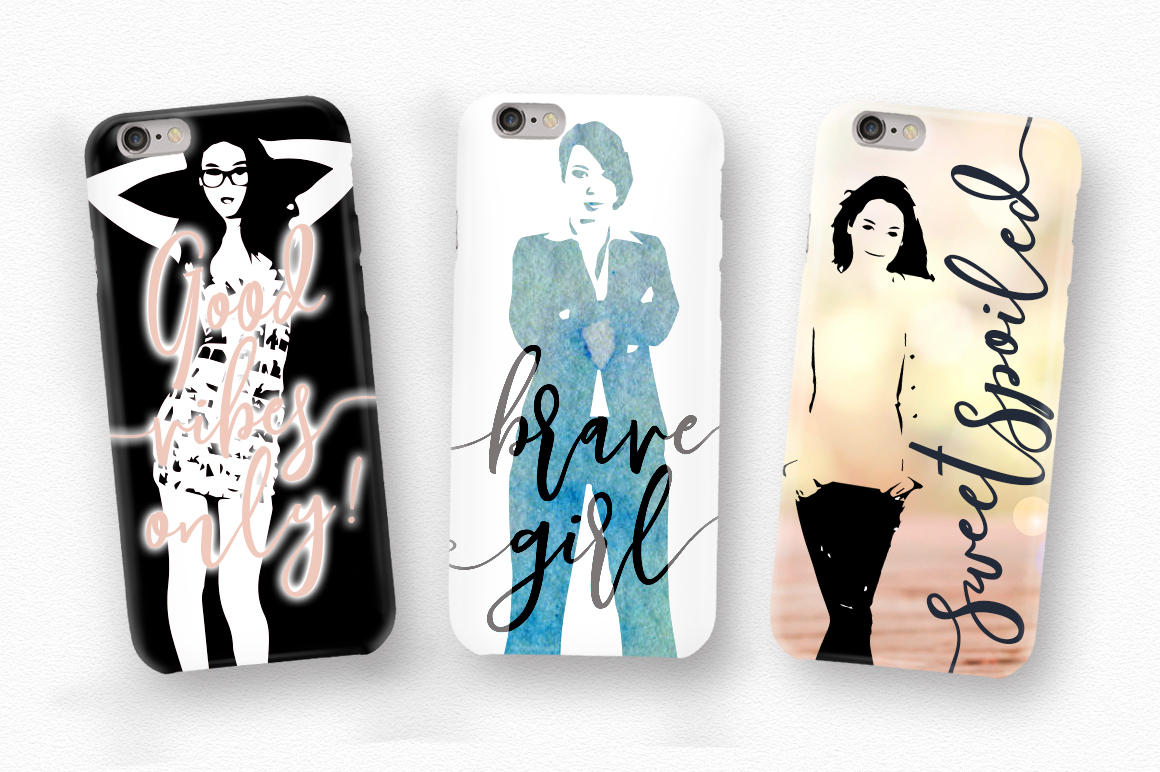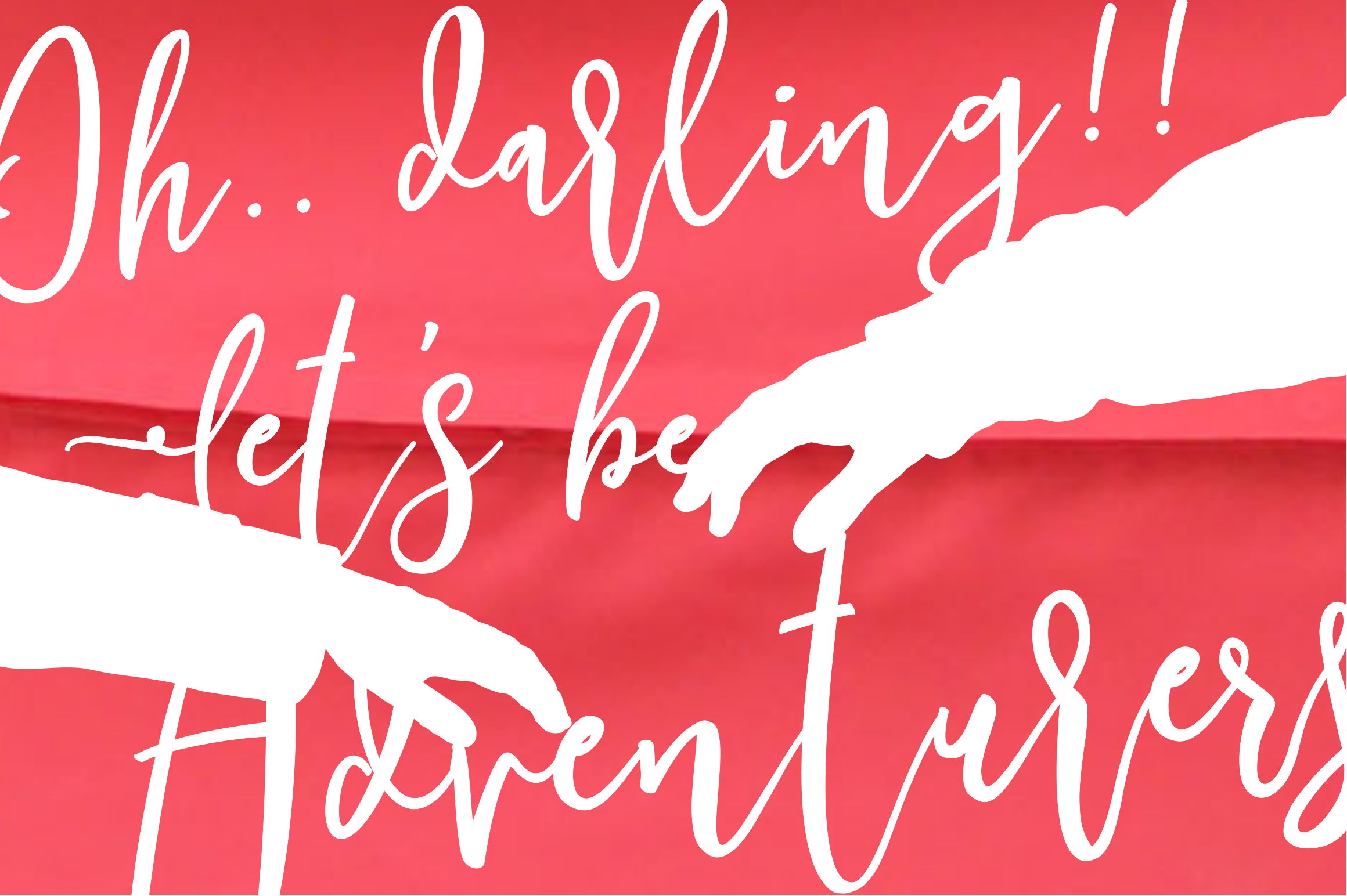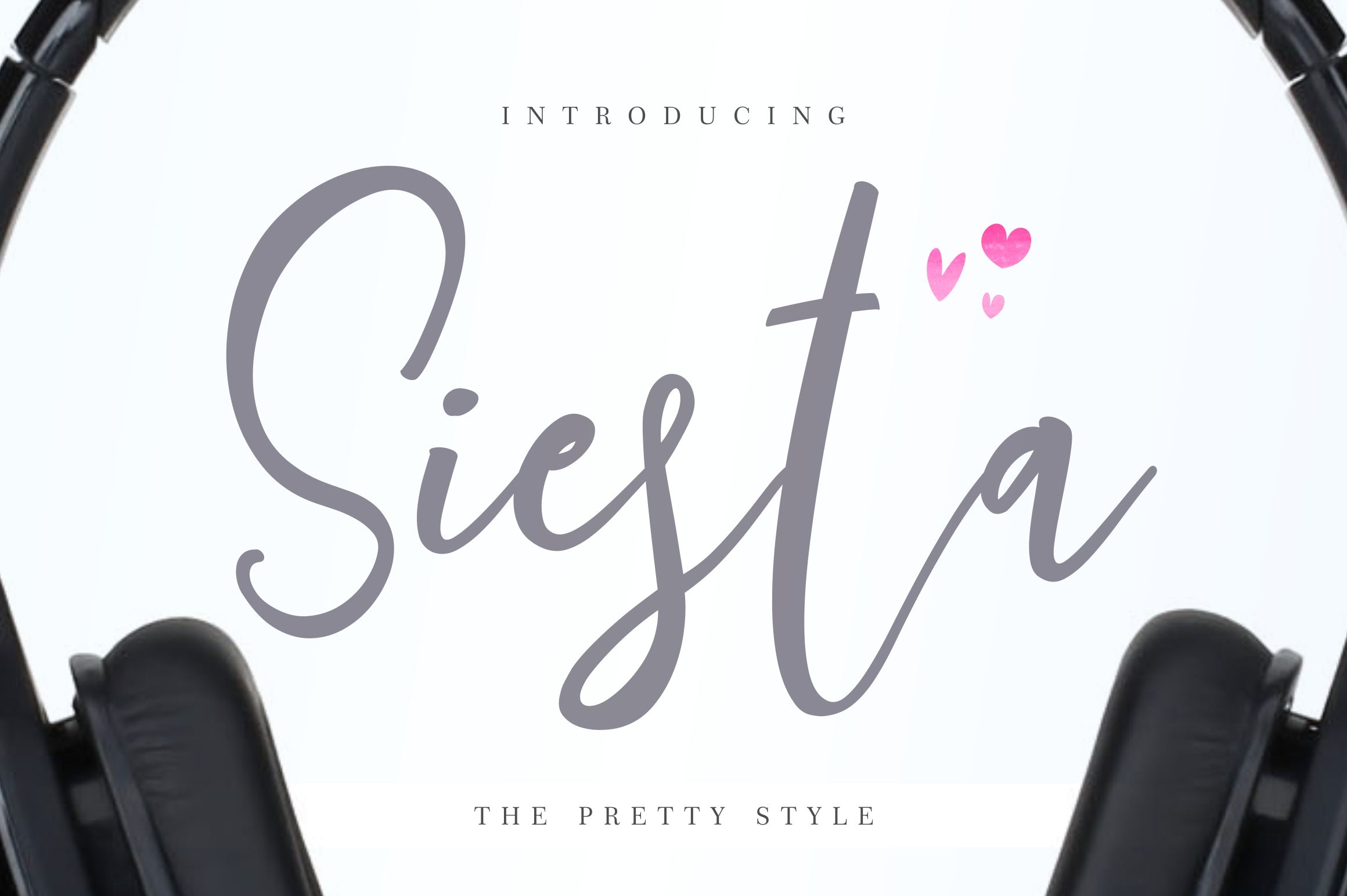
Siesta Script
Siesta Script Font
Siesta is a playful handwritten font with modern script style. This sweet font has nice smooth lines and is perfect for crafters and cutting machines. Siesta will look gorgeous on cards, mugs, quotes, logo’s and all your other lovely projects.
Siesta contains standard characters, lowercase, uppercase, numbers, punctuation, ligatures, international characters and some playful alternates.